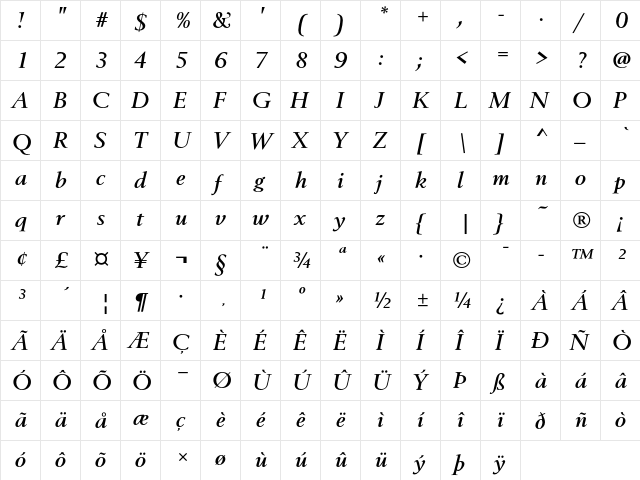
Berling T Bold Italic Font Preview
Berling T Bold Italic
Design Context for Berling T Typeface
Berling T is a composed and adaptable typeface that performs quietly and consistently across a wide range of design contexts. The dynamic lean of this cut emphasises speed and emphasis in any layout. The heavy weight commands attention and anchors typographic hierarchies.
Pro Tip: Use Berling T for emphasis, pull quotes, and subheadings where its slanted energy can add rhythm to the layout.